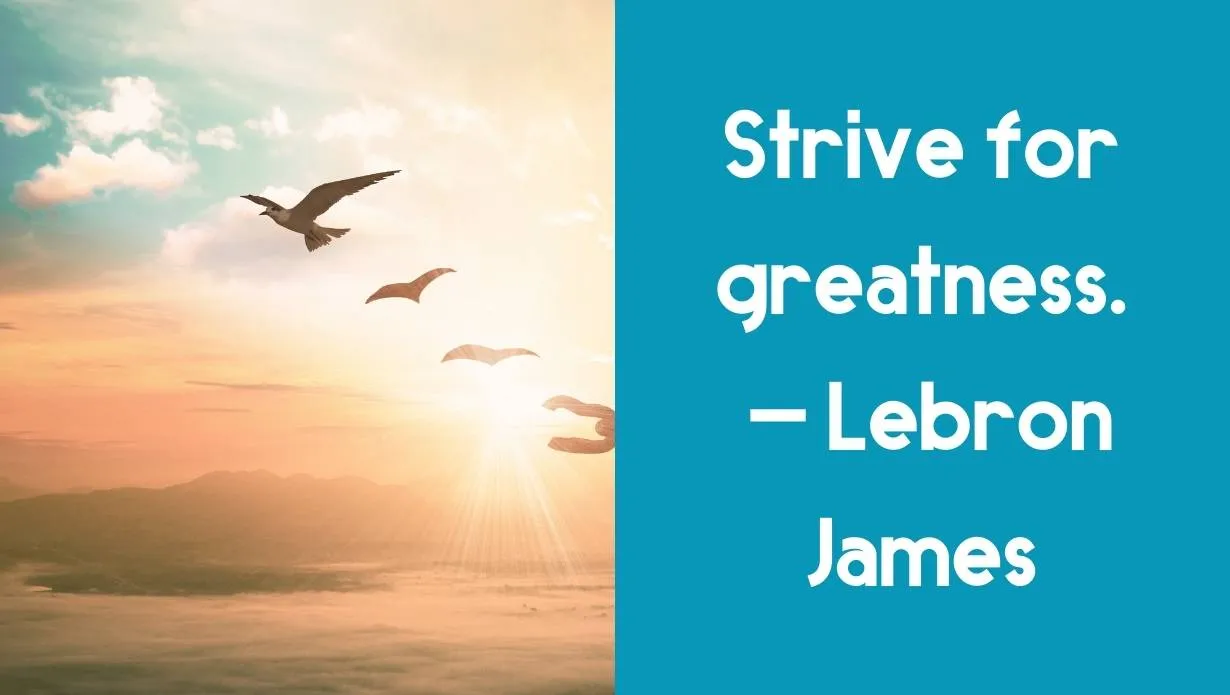
We are going to present you with a new modern font style design that is known by the name of Sunday Font. This font style design falls under the category of Display Typeface. Anastasia Dimitriadi is the designer of this unique-looking elegant font style design.
This glorious font style contains all the necessary glyphs that are necessary for the designer to use in their project design. It also includes both lowercase characters and uppercase characters. This font style design also consists of the best stylish alternatives.
Sunday Font Family
| Name | Sunday Font |
| Designer | Anastasia Dimitriadi |